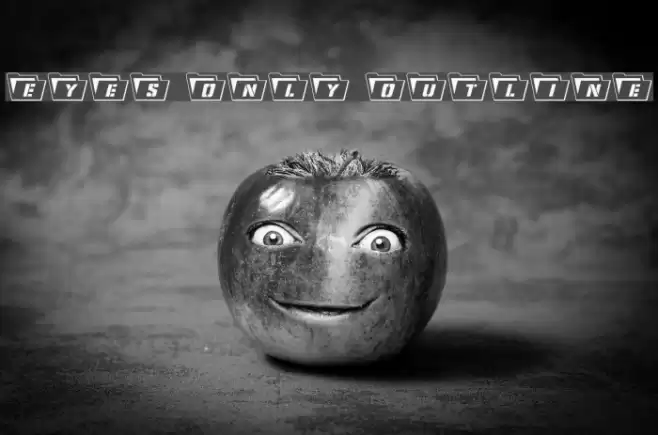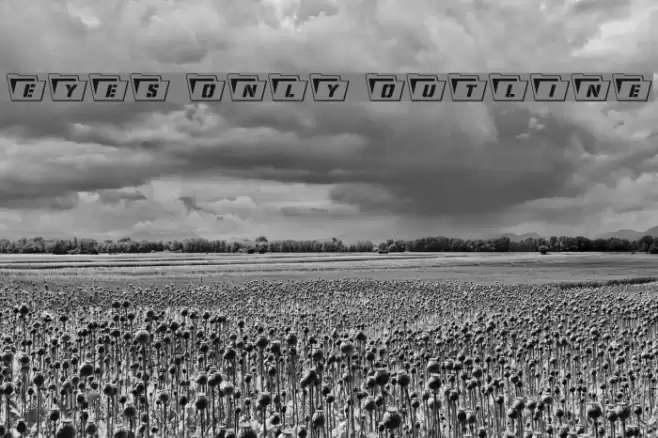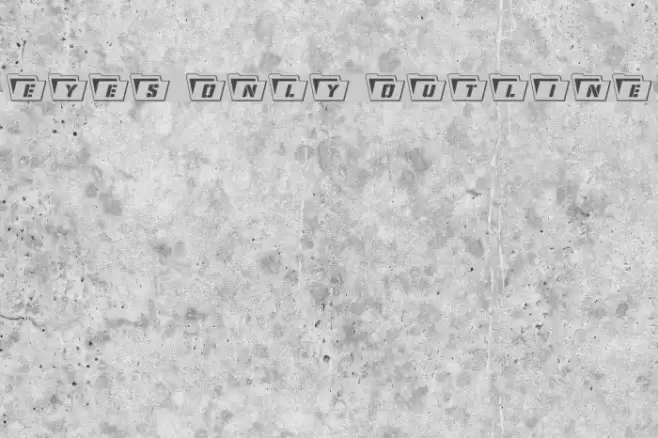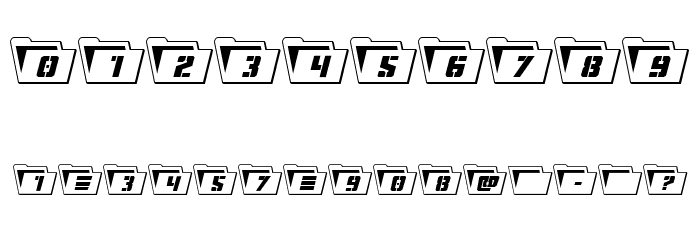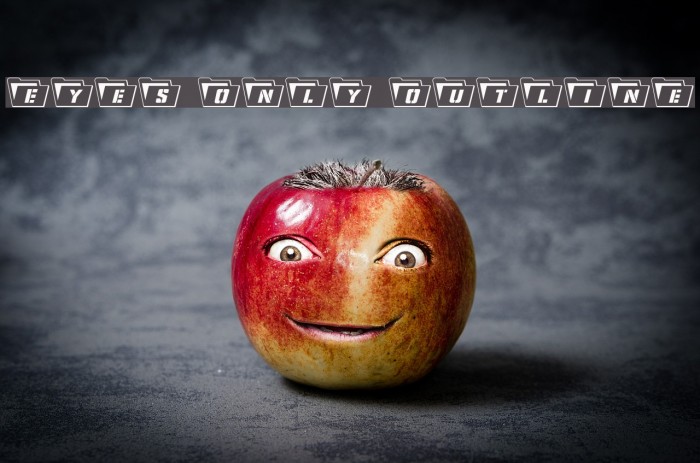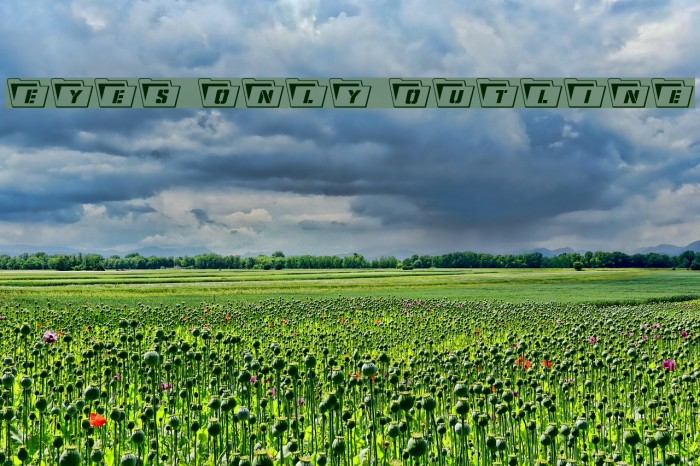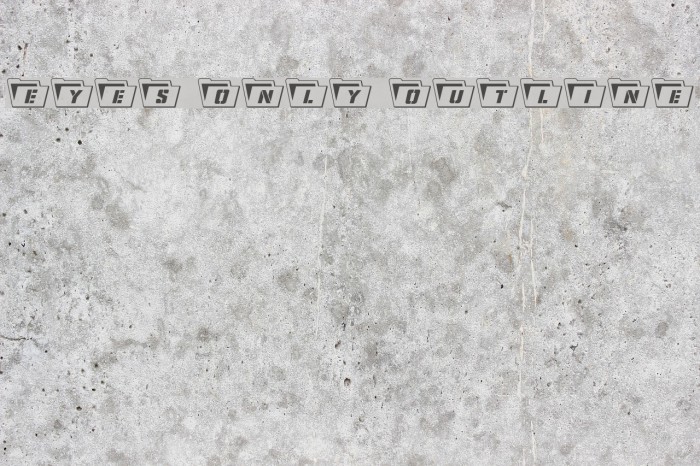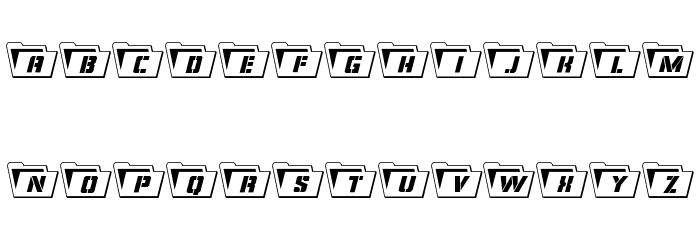
Eyes Only Outline Font
Eyes Only Outline Description
This unique font features characters enclosed within folder-like outlines, creating a distinctive and modern appearance. Each letter and number is bold and angular, with a consistent design that emphasizes clarity and readability. The style is reminiscent of digital or technological themes, making it ideal for projects that require a futuristic or tech-savvy look. The characters are uniformly spaced, ensuring a clean and organized presentation. The font's boldness and high contrast between the black characters and white outlines enhance its visibility, making it suitable for various display purposes.
A bold, tech-inspired font with characters in folder-like outlines from Uncategorized fonts.
- Proposed Projects: Ideal for tech branding, digital media, futuristic posters, and software interfaces.